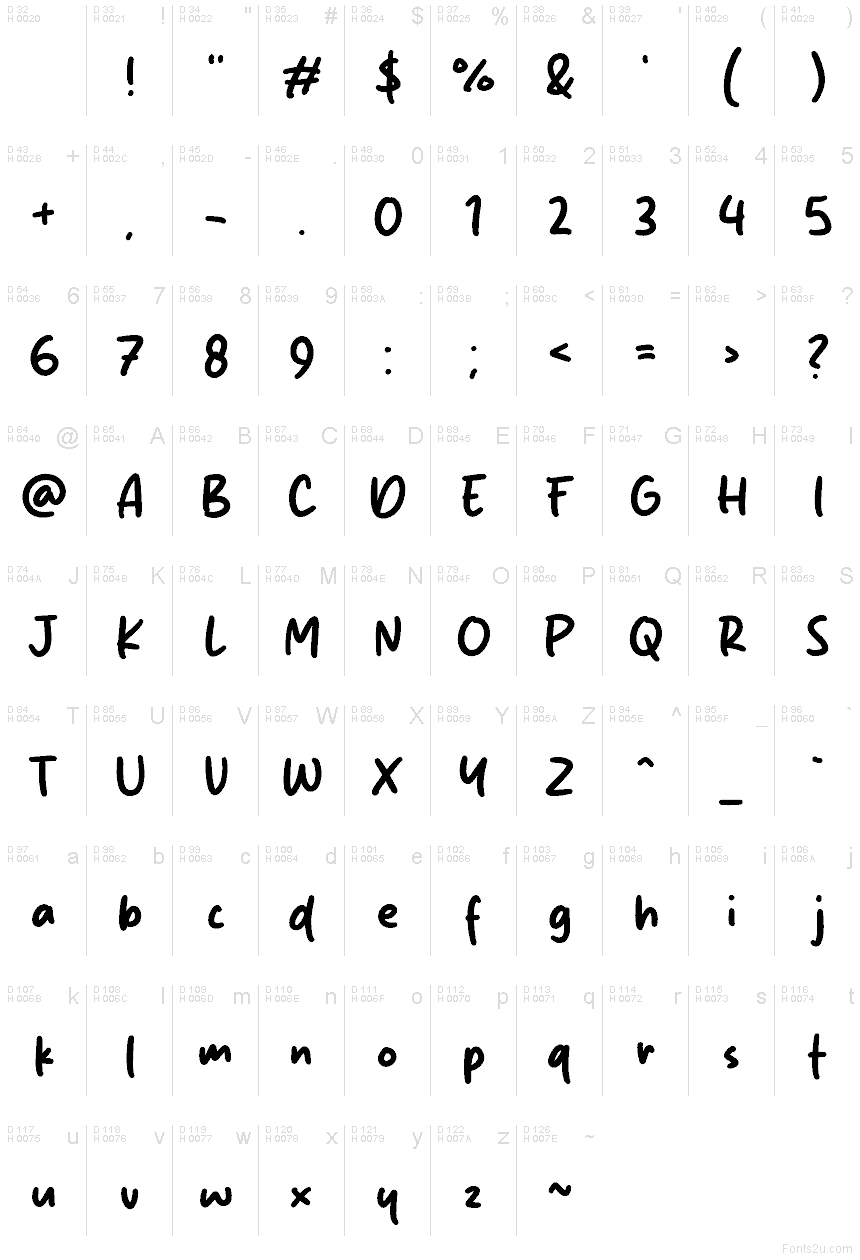
Mistery Silent
Mistery Silent font by MJType combines casual handwritten style with a modern appeal for an overall expressive appearance. The typeface builds a relaxed aesthetic especially with its smooth and soft lines making it inviting for readers. Use this free handwritten font to captivate audiences with unusual and surprising visual features.
The single-weight type style is useful in greeting cards, social media ads, posters, book covers, creative blog posts, and quotes. It was originally designed to be used on packaging ideas for cosmetics and fashion garments by focusing on the text element line thickness. Additional use cases include headings within prints or digital designs as well as set-ups for website content like shop head titles or branding sections that need subtle enhancements without overpowering other elements like logo designs frequently do!